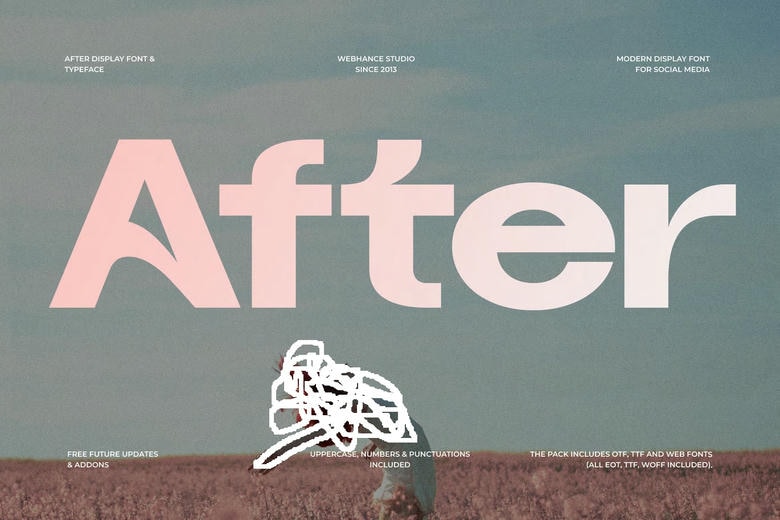
After Font
After is a modern, versatile sans-serif font designed for those who want something simple but still sophisticated. Its clean style fits many creative projects, including branding and web design.
Its balanced shapes and clear letters make it easy to read, while still looking modern and stylish. Try it for logos, headlines, presentations, or layouts to give your work a polished, professional look.
After Sans Serif Font